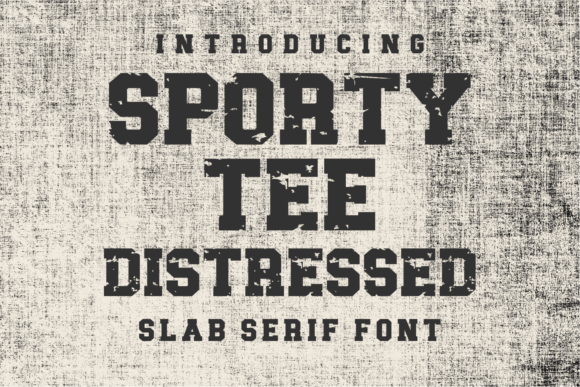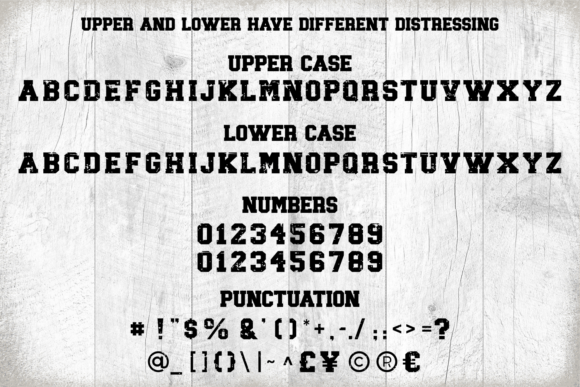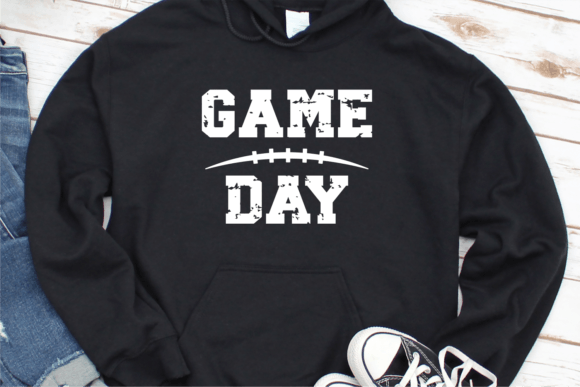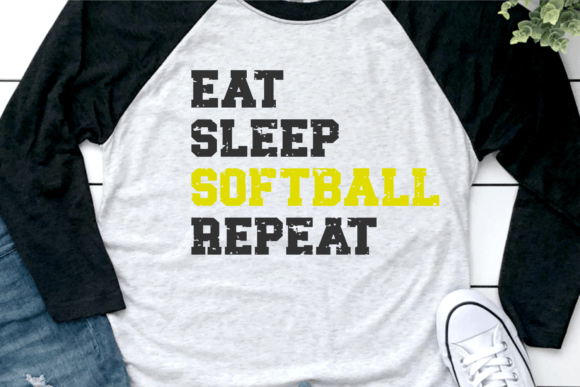
Sporty Tee Distressed Font
About the Sporty Tee Distressed Font
The Sporty Tee Distressed Font offers a perfect balance of form and function for your design needs. Sporty Tee Distressed is a lightly distressed sport font. It looks powerful and is created to add a vibrant touch to your sport-inspired designs. Suitable for sports design, team, jersey, league, movie, documenter, film, logo, poster, game, book cover, headlines, title, and many more projects.
Sporty Tee Distressed Font Usage Examples
Sporty Tee Distressed Font Example